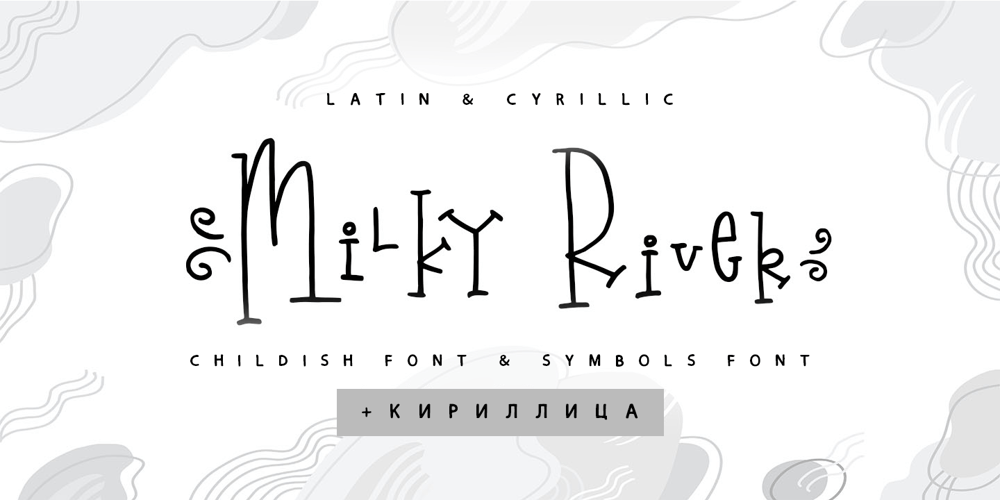
Milky River Cyrillic Script Font Family was designed by Iryna Dviliuk and published by Ira Dvilyuk. Milky River Cyrillic Script contains 2 styles and family package options. Milky River Cyrillic playful childish font contains the uppercase and main & alternative lowercase letters. And also the full set of double letters a large range of numerals and punctuation.The Milky River font will be perfect for use in all your fun design projects be it logos, labels, packaging design, blog headlines. Also, it will look great on mugs, cards, kids’ books headlines, or other typographic projects.Milky River Cyrillic playful childish cute font contains the Cyrillic glyphs too.The Milky River symbols are an additional font with 36 hand-drawn doodles, catchwords, arrows, and swashes and can help to make your design more original. Combine and arrange swashes and illustrations to create your own designs and make borders, frames, dividers, logos, and more (just use a-z and 0-9 keys in the included Milky River symbols font). A different symbol is assigned to every uppercase or lowercase standard character so you do not need graphics software just simply type the letter you need.Support for 31 languages: Latin glyphs for Afrikaans, Albanian, Basque, Bosnian, Catalan, Danish, Dutch, English, Estonian, Faroese, Filipino, Finnish, French, Galician, Indonesian, Irish, Italian, Malay, Norwegian Bokmål, Portuguese, Slovenian, Spanish, Swahili, Swedish, Turkish, Welsh, Zulu.And Cyrillic glyphs support for Russian, Belorussian, Bulgarian, and Ukrainian languages.